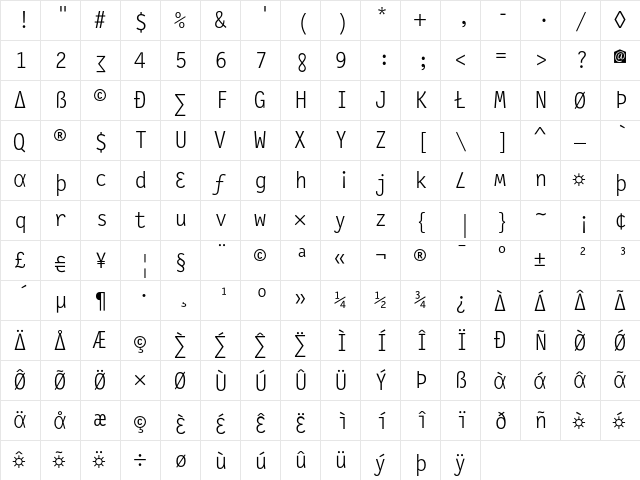
LetterGothicSlang Light
Design Context for LetterGothicSlang Typeface
LetterGothicSlang has the quiet confidence of well-executed sans-serif typography: versatile, unobtrusive, and dependable at any size. Its slender proportions lend an understated elegance to any composition.
A natural fit for high-end product packaging, luxury brand identities, and refined web typography.
Font Pairing: Pair LetterGothicSlang with a medium or bold serif for headlines — the weight contrast creates an elegant, high-end feel.
Pro Tip: Use LetterGothicSlang with generous tracking and line-height for the most luxurious effect — light sans-serifs reward spacious, considered layouts.